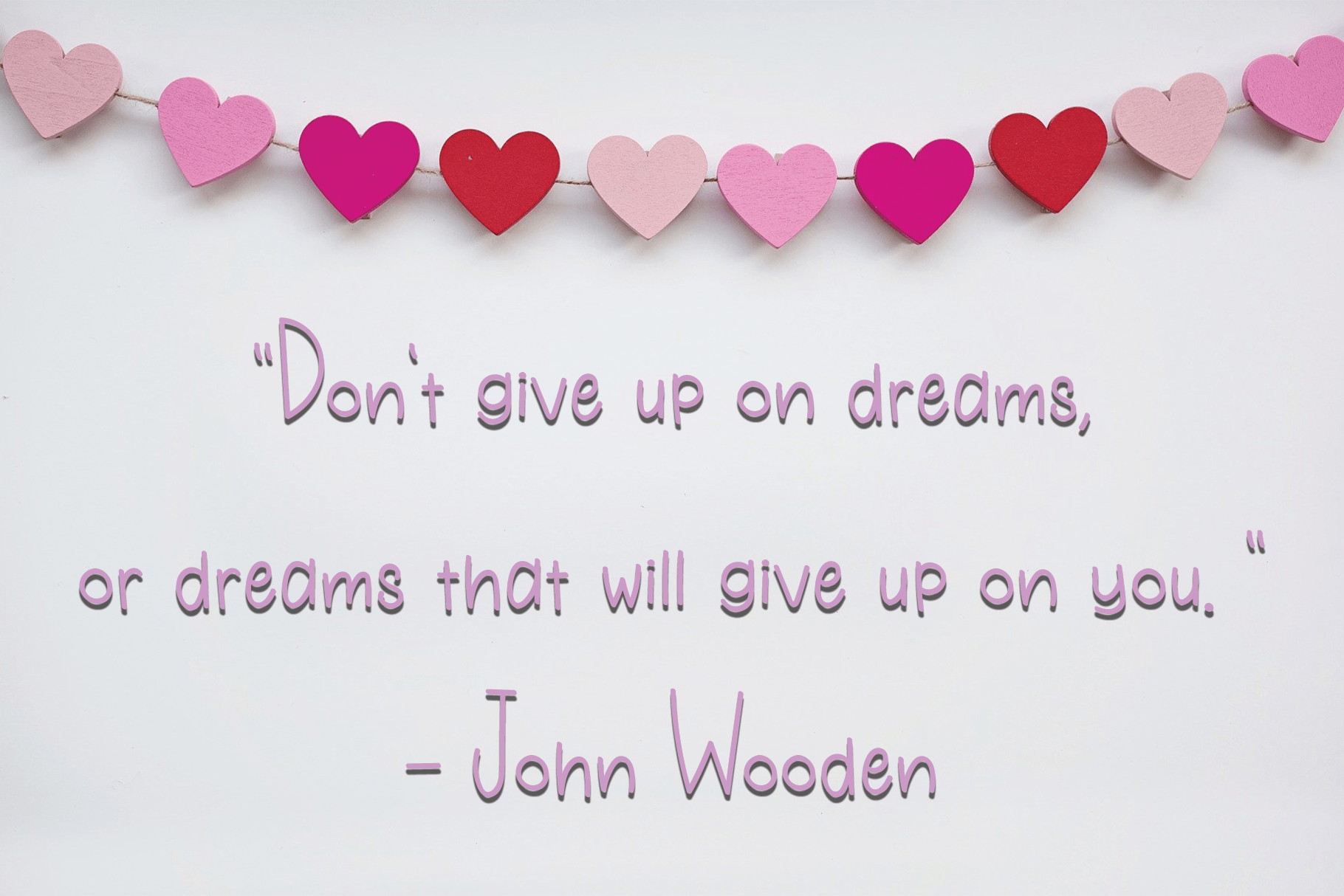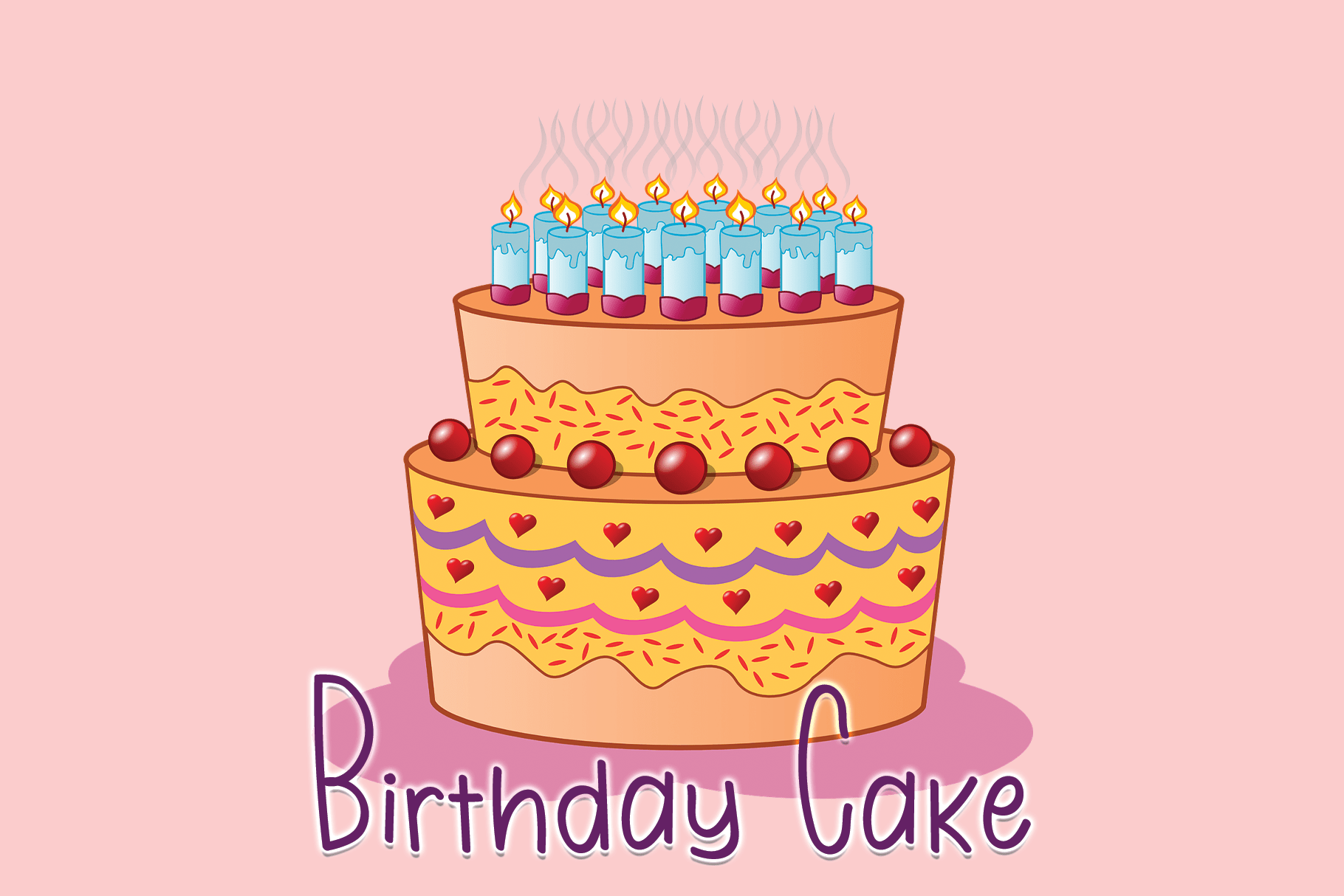
Birthday Font
Birthday Display Font
This is a cool, simple and natural script font. It can be added to a variety of casual designs. This font is perfect for children themed designs, especially when combined with bright colors.